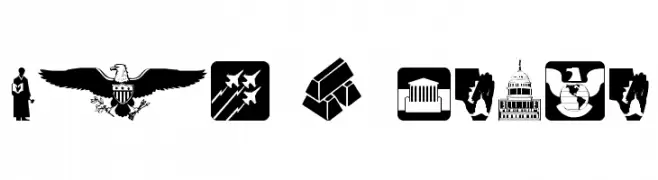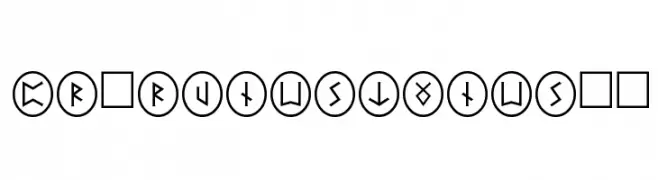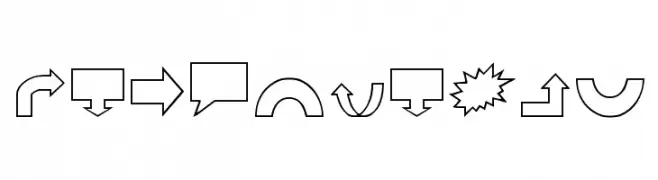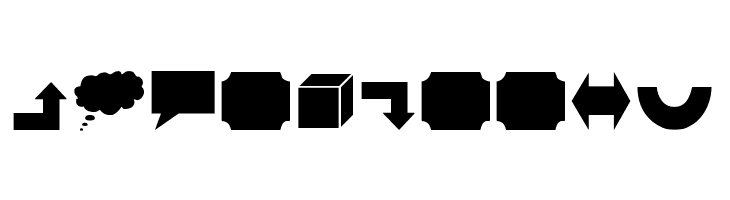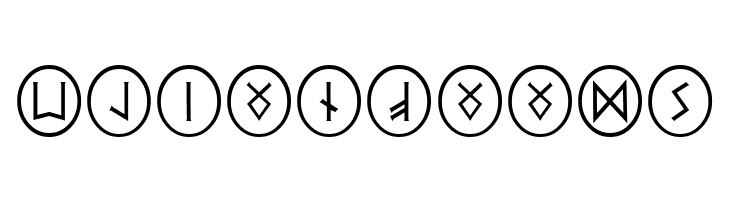
Outlined symbol and shape set with a clean, uniform line style.
A bold collection of solid shapes and symbols for versatile design use.
A decorative font inspired by ancient runic symbols, featuring geometric characters within circles.
Iconic font with legal and governmental symbols.
A decorative symbol font featuring stars, hearts, and arrows with a playful style.